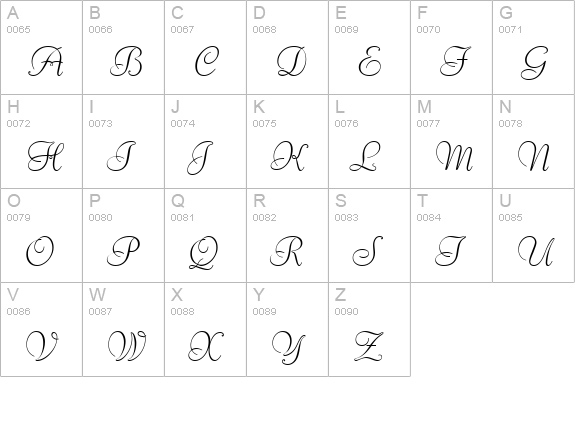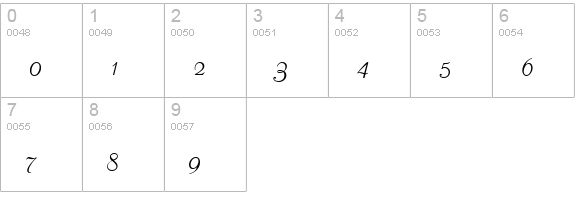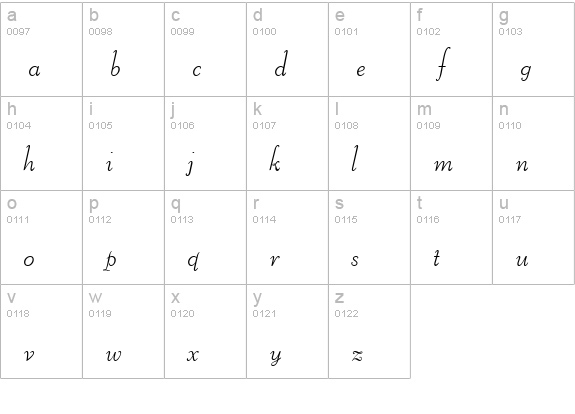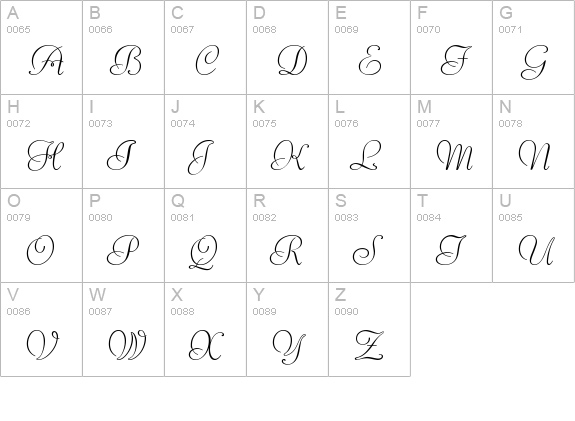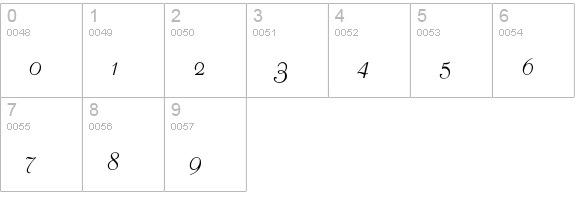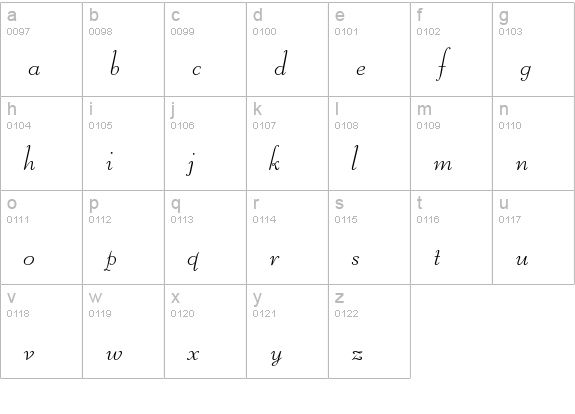
Liberate Normal is the standard, neutral variant in the Liberate typeface family \xE2\x80\x94 well suited to general body text, paragraphs, and standard typographic work.
Liberate Normal font is a versatile and modern typeface that exudes a sense of freedom and creativity. With its clean lines and balanced proportions, this font is perfect for a wide range of design projects, from branding to editorial work. Liberate Normal font brings a sense of liberation and openness to your designs, allowing your creativity to flow freely. Best of all, Liberate Normal font is freely available to download at FontsMarket.com. Whether you're a professional designer or a hobbyist looking to add a fresh touch to your projects, Liberate Normal font is a fantastic choice for bringing your ideas to life. Download it today and set your creativity free with this stunning typeface.